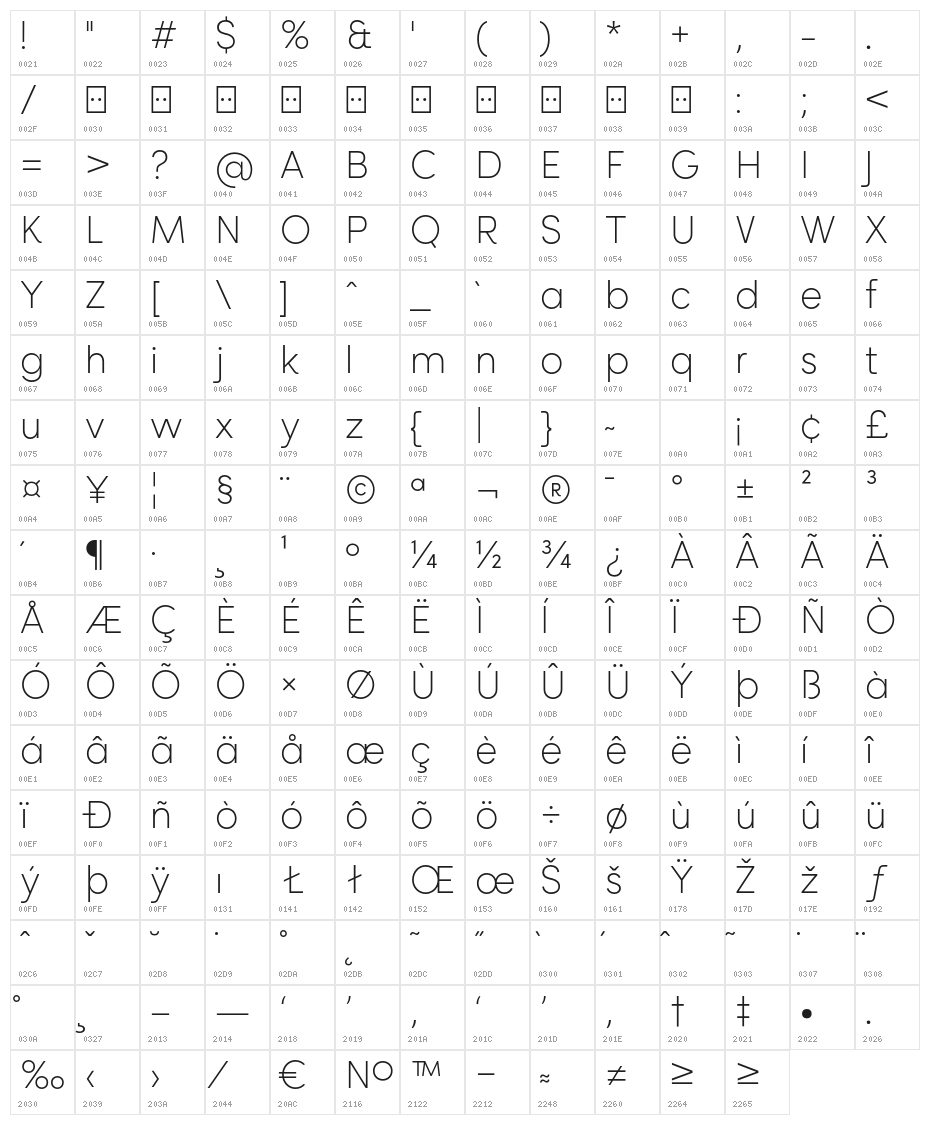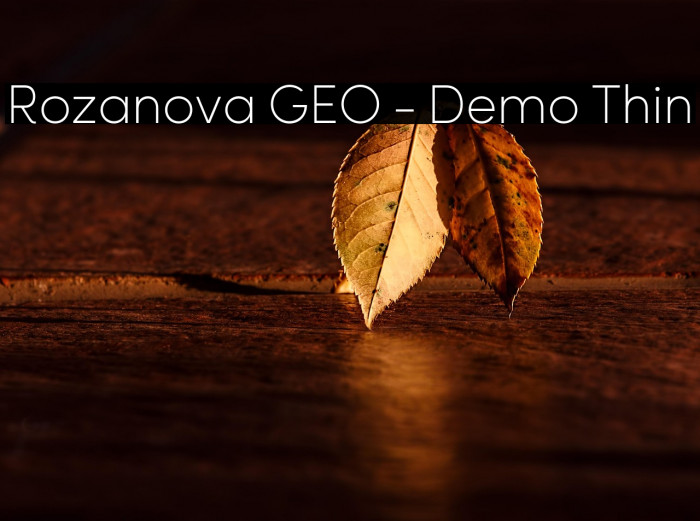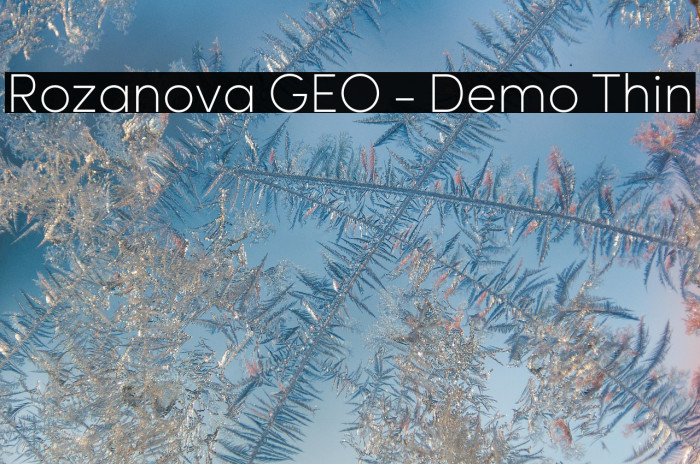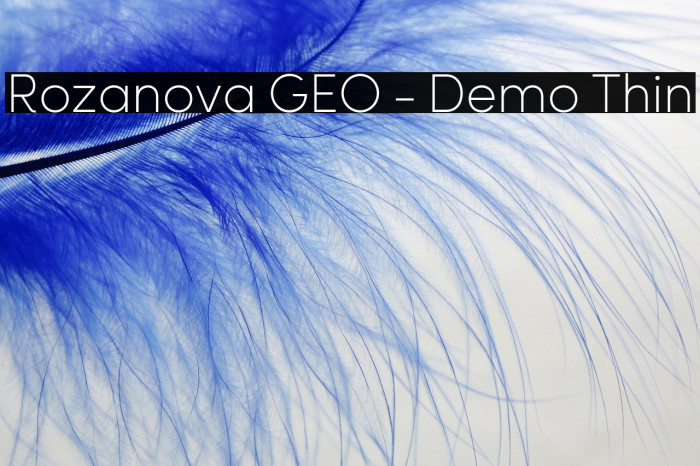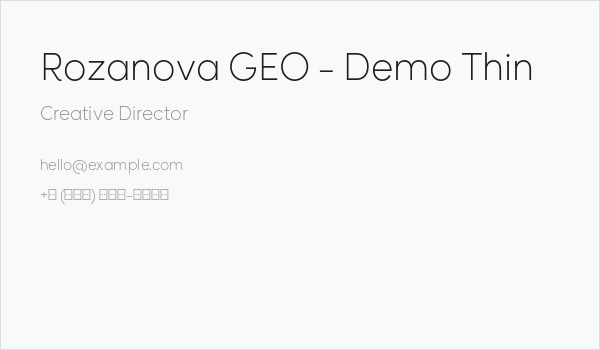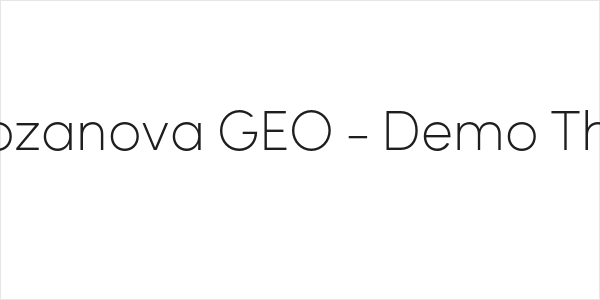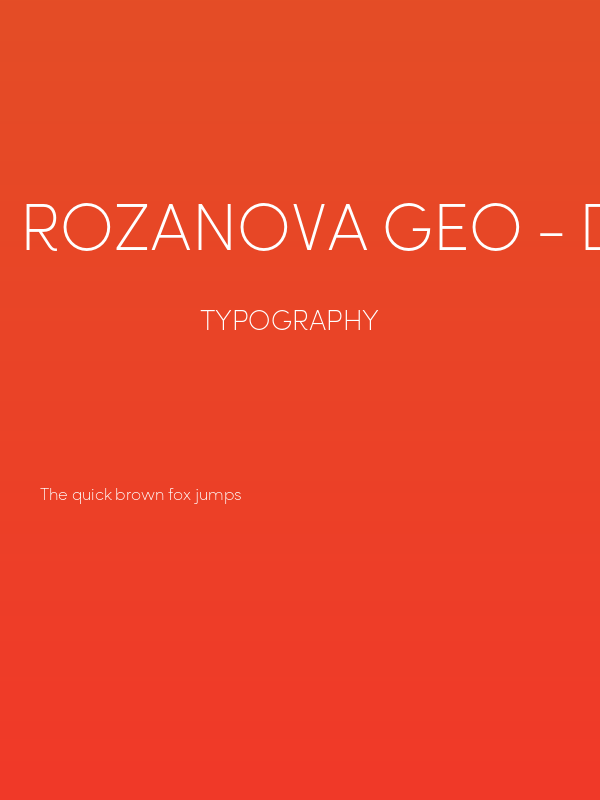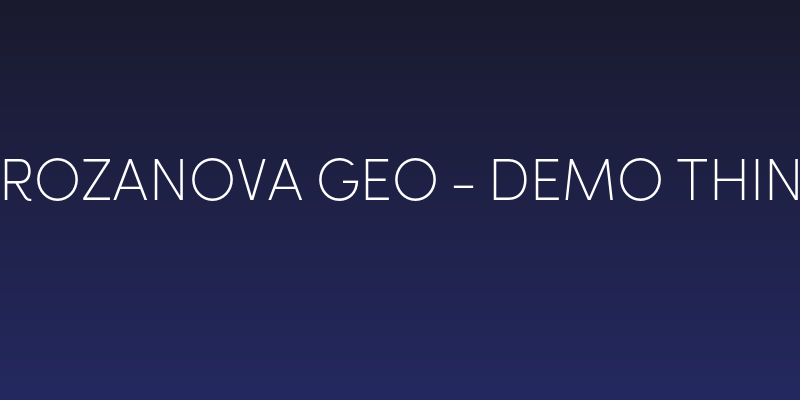
Rozanova GEO - Demo Thin Font
Rozanova GEO - Demo Thin Description
This font features a clean, geometric sans-serif style with a modern and minimalist aesthetic. The characters are constructed with uniform stroke widths, giving it a consistent and balanced appearance. The uppercase and lowercase letters are well-proportioned, with a focus on simplicity and readability. The numerals and special characters maintain the same geometric precision, making the font versatile for various design applications. Its thin weight adds an elegant touch, suitable for contemporary projects.
| Proposed Projects | Ideal for branding, editorial design, web design, and minimalist graphic projects. |